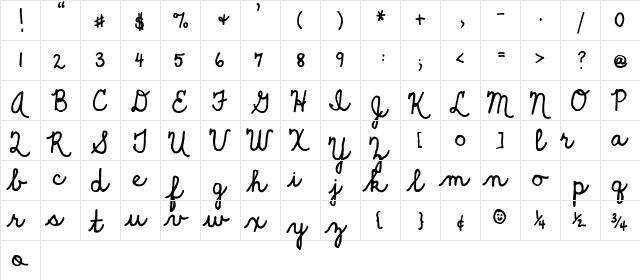
FG Ester Regular
Design Context for FG Ester Typeface
FG Ester takes a measured approach to typography — its balanced proportions and neutral character make it a reliable workhorse for both digital and print work.